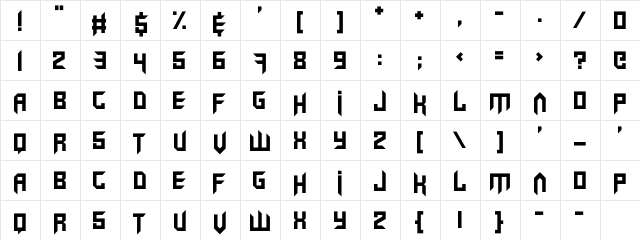
Virtual Rave Regular Font Preview
Virtual Rave Regular
Design Context for Virtual Rave Typeface
Virtual Rave is a composed and adaptable typeface that performs quietly and consistently across a wide range of design contexts.
Pro Tip: Use Virtual Rave in both headline and body roles to test its range before committing to a single application.